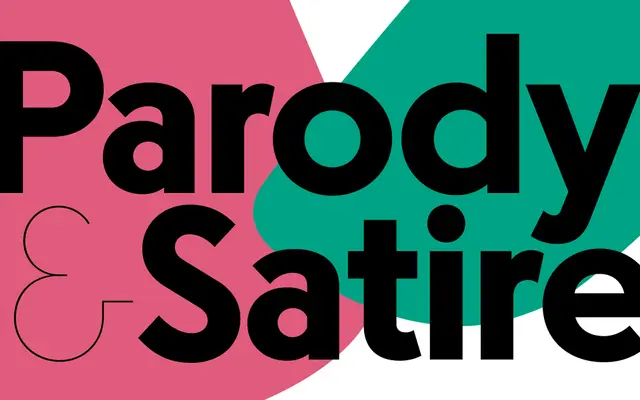
Escalator
XYZ Type · Jesse Ragan
A geometric sans inspired by prefabricated 1950s signage lettering, delivered as a variable font with an optical size axis spanning text to display use.
Escalator originated from a commission to replicate signage for the renovation of a New York City skyscraper, drawing on prefabricated 'Block' and 'Futura' style letterforms from the 1950s. Designer Jesse Ragan increases the distinction between the two source styles, with the family delivered as a variable font offering a full weight range and an optical size axis that adjusts structure, tapering and spacing from small text to large display. Released under early access, the family is in active development with planned refinements to design, kerning and the italic character set.
Escalator draws from prefabricated geometric letterforms of the 1950s, referencing both 'Block' and 'Futura' style signage. Its geometric construction, optical size axis and variable weight range place it firmly in the geometric sans category.